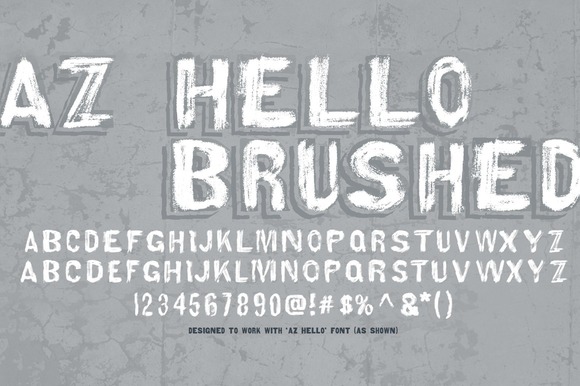
The Designer’s Delight: AZ Hello Brushed Font
I’ll never forget the struggle I faced while working on a retro-themed project for a client. I was on a mission to find the perfect font that would transport my design back to the good ol’ days. That’s when I stumbled upon AZ Hello Brushed, a font that instantly reminded me of old car repair signs. The worn, brushed texture and quirky charm had me hooked! In this article, I’ll share my experience with AZ Hello Brushed, its features, and how to make the most of it in your designs.
- ✨ Unique, hand-brushed texture that adds a touch of nostalgia to any design
- 💡 Excellent for creating eye-catching headings, titles, and signage
- 🎨 Versatile and works well with a variety of design styles, from vintage to modern
While AZ Hello Brushed is an amazing font, there are a few things to keep in mind:
- 🤔 May not be the best choice for body text or long paragraphs, as it can be a bit too ornate
- ⚠️ Some characters, like the lowercase ‘q’ and ‘x’, might appear a bit cramped or uneven
The Designer Inspiration Behind AZ Hello Brushed
The story behind AZ Hello Brushed is one of passion and inspiration. The font’s creator drew inspiration from old car repair signs, infusing the font with a sense of nostalgia and playfulness. The result is a font that’s both retro and modern, perfect for designers looking to add a touch of whimsy to their work.
| Font Name | AZ Hello Brushed Font |
| Author | Artistofdesign |
Q: What type of projects is AZ Hello Brushed best suited for?
A: AZ Hello Brushed is ideal for creative projects that require a touch of nostalgia, such as vintage-themed designs, retro-style posters, or distressed logos.
Q: Is AZ Hello Brushed available in different weights or styles?
A: Currently, AZ Hello Brushed is available in a single weight. However, some font libraries or foundries might offer variations or similar fonts that can help you achieve a different look.